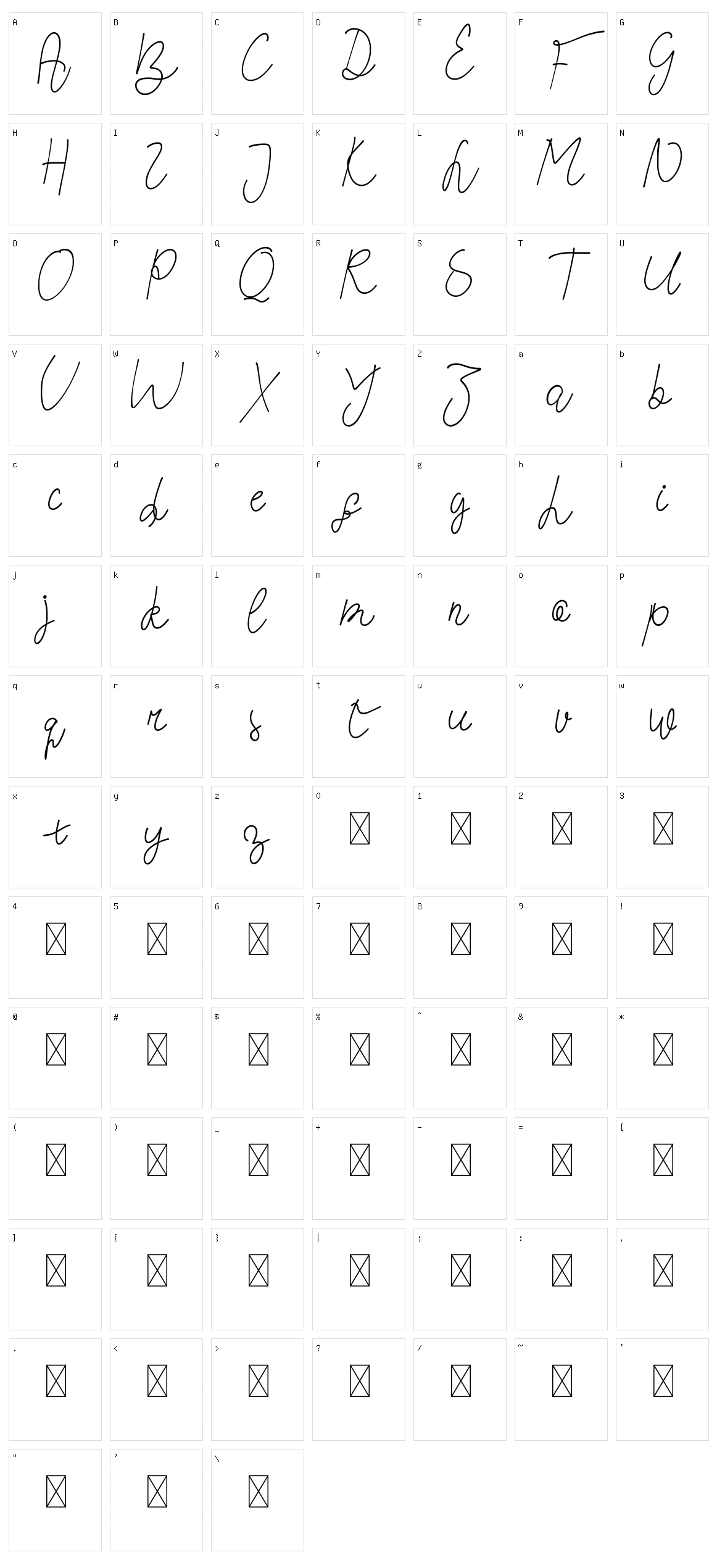
The free font Look Down is carefully designed by Edric Studio, showcasing a thoughtful balance of creativity and usability and falls under the Script font style. When you download the ZIP file, it contains only 18.44 KB of font files, making it lightweight and quick to download. Please review the license details below to understand permitted usage and distribution rights. If license information is not available, we recommend using this font for personal projects only or contacting the author directly for commercial usage permissions.